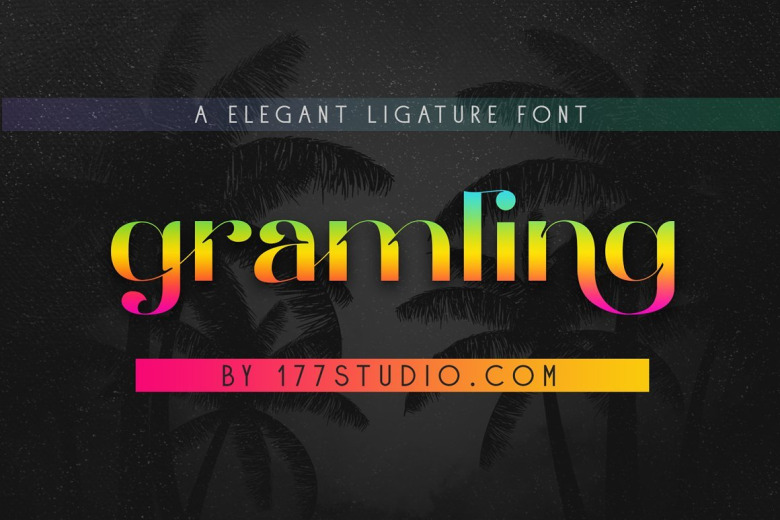
Gramling Font
gramling – unique & chic font is a unique and chic font for brand and logo design. You will get classy, elegant, and certainly unique logos with this font. gramling is perfect choice for people looking for clean, modern, minimalist, elegant, beauty design styles.
Suitable for almost any graphic designs such as logo, branding materials, business cards, gift cards, t-shirt, cover, thumbnail, print, poster, photography, quotes .etc